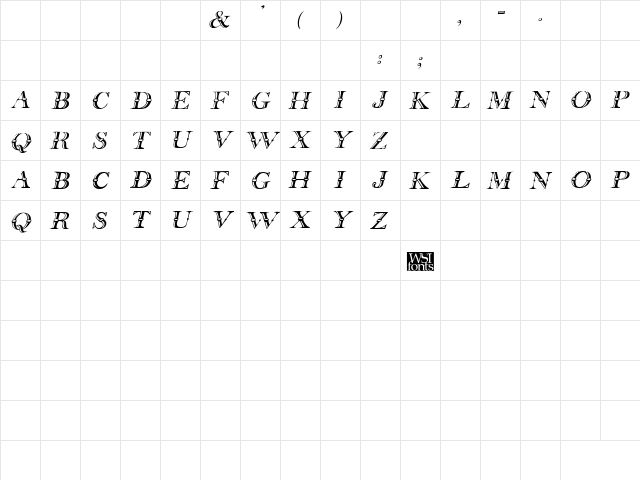
CruiselineDisplayCaps Italic
Design Context for CruiselineDisplayCaps Typeface
CruiselineDisplayCaps is built around its visual character rather than neutral utility — its distinctive forms are designed to make an impression at display sizes. The dynamic lean of this cut emphasises speed and emphasis in any layout.
Font Pairing: Pair with a clean neutral sans-serif for body copy to let CruiselineDisplayCaps's character lead without overwhelming the composition.
Pro Tip: Use CruiselineDisplayCaps exclusively at display sizes — it was designed to be seen, not read at length. Let a neutral companion handle body copy.